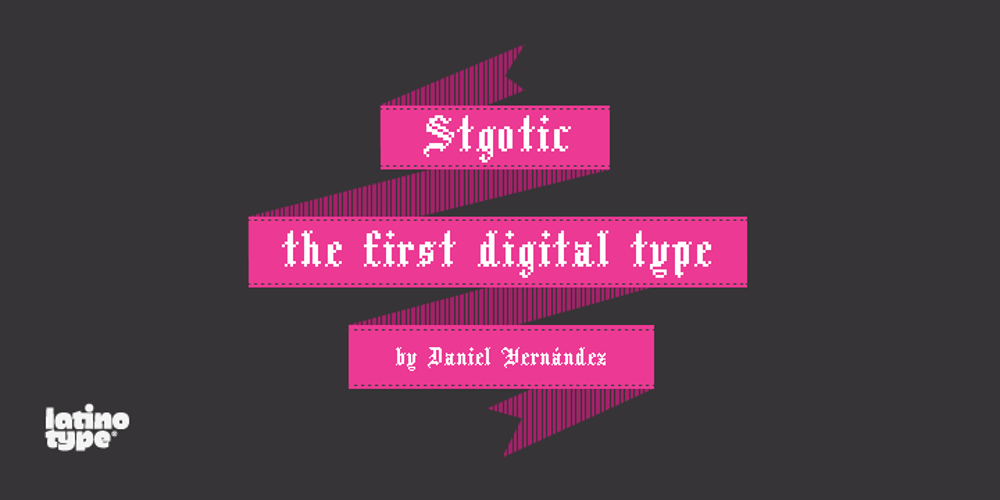
Stgotic Font Family was designed by Daniel Hernández and published by Latinotype. Stgotic contains 1 styles and family package options. Stgotic, designed in 2006, was the first digital font designed by Daniel Hernández. It is a blackletter typeface designed for low resolution screen devices. Stgotic was designed to be seen at 8 pts (and multiples of 8). In the year 2006, it was recognized as the best screen font by the TipoGráfica magazine in the context of the Bienal de Letras Latinas.